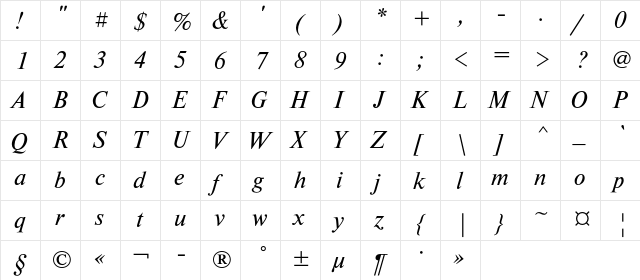
NewtonC Italic Font Preview
NewtonC Italic
Design Context for NewtonC Typeface
NewtonC offers clean, dependable letterforms without strong stylistic allegiance, making it a practical choice for designers who need flexibility. The slanted form adds forward momentum and visual energy.
Pro Tip: Use NewtonC for emphasis, pull quotes, and subheadings where its slanted energy can add rhythm to the layout.